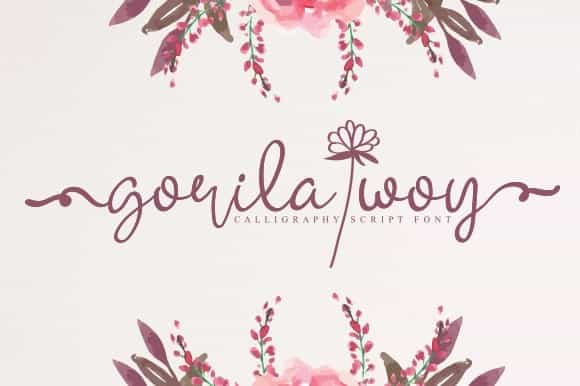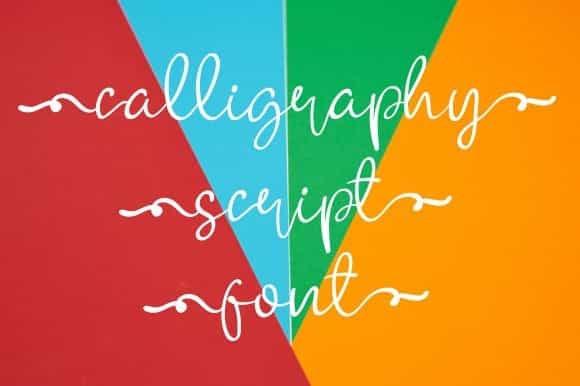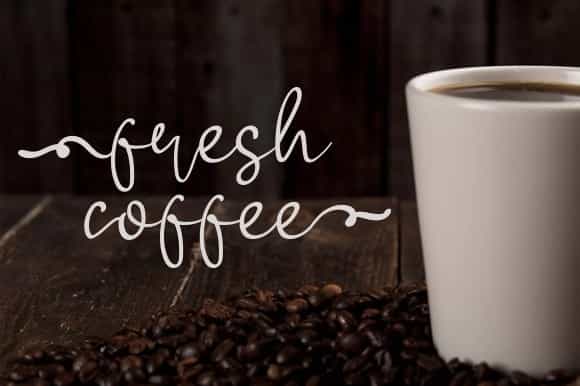
Discover Gorila Woy Calligraphy Font, part of the Calligraphy Handwritten collection—a versatile and unique font perfect for adding a personal touch to your projects. Download it for free and enjoy crafting designs with style, from invitations to social media posts. This font is available exclusively for personal use, giving you the freedom to create without limits. Unlock your creativity with Gorila Woy Calligraphy Font today!
Gorila Woy is a font that is based on the old typography and it has its own special design which can be applied to any project. This fabulous and distinctive handwritten font will be a great addition to any DIY project.